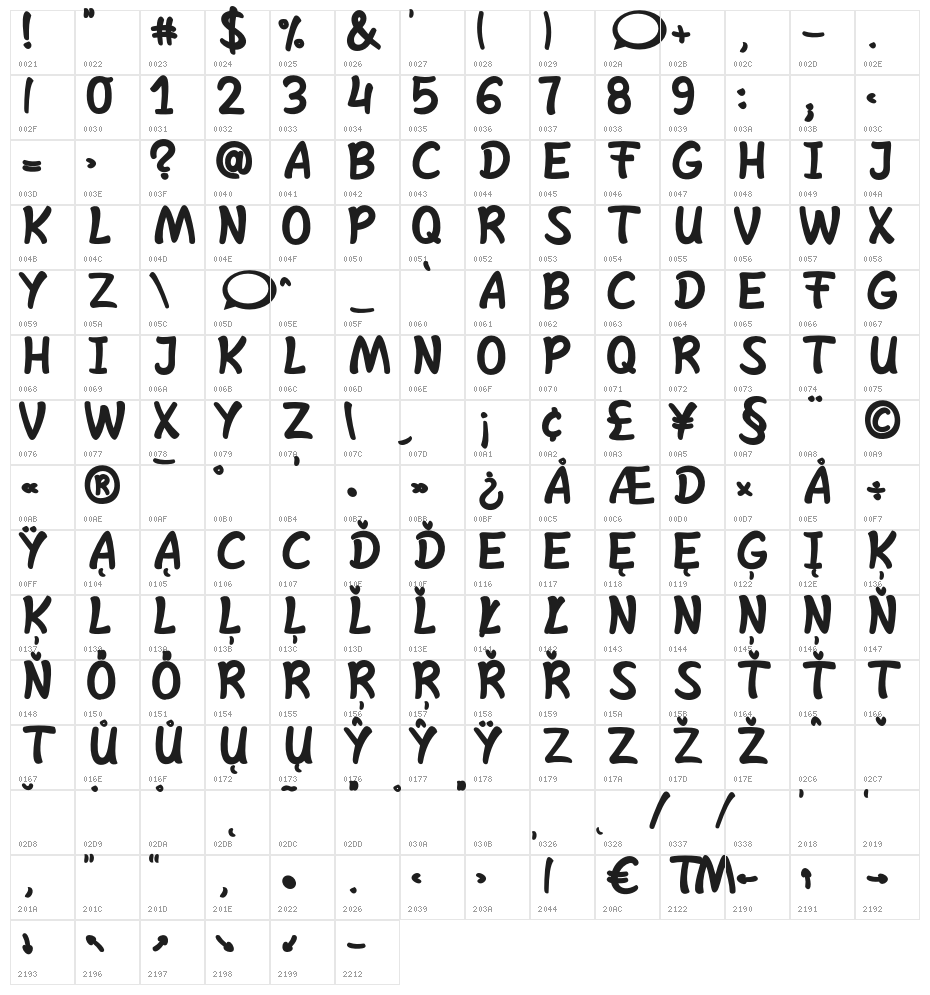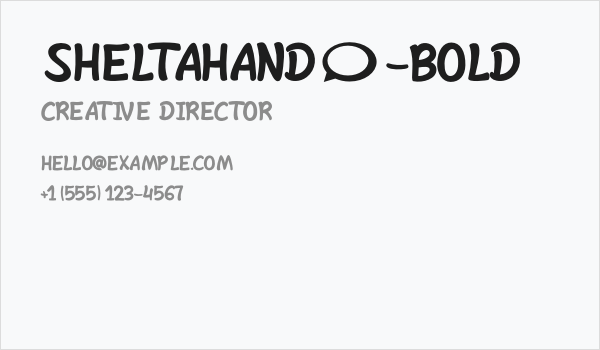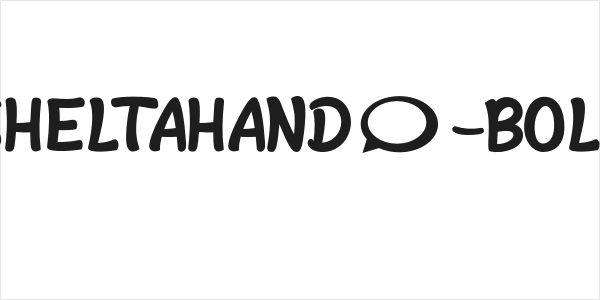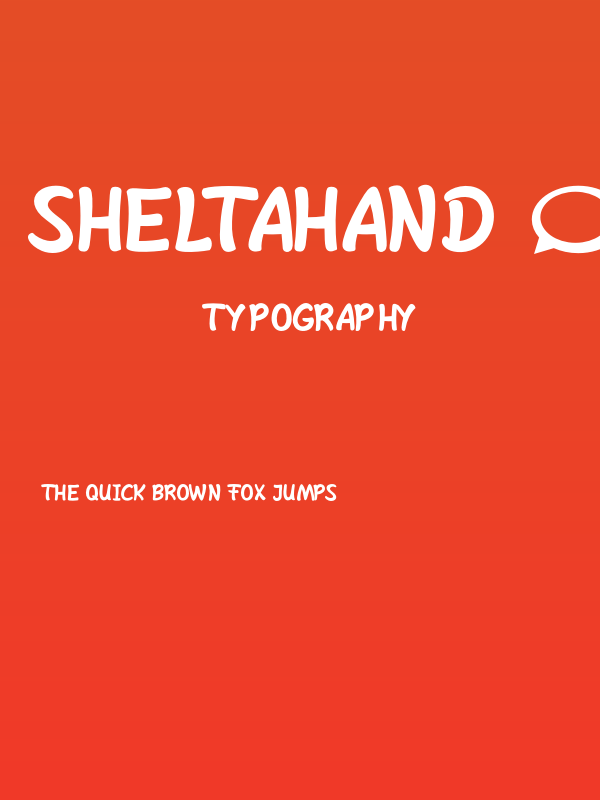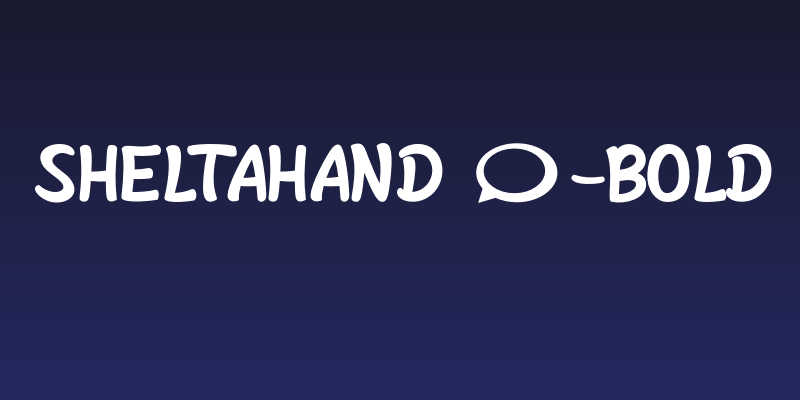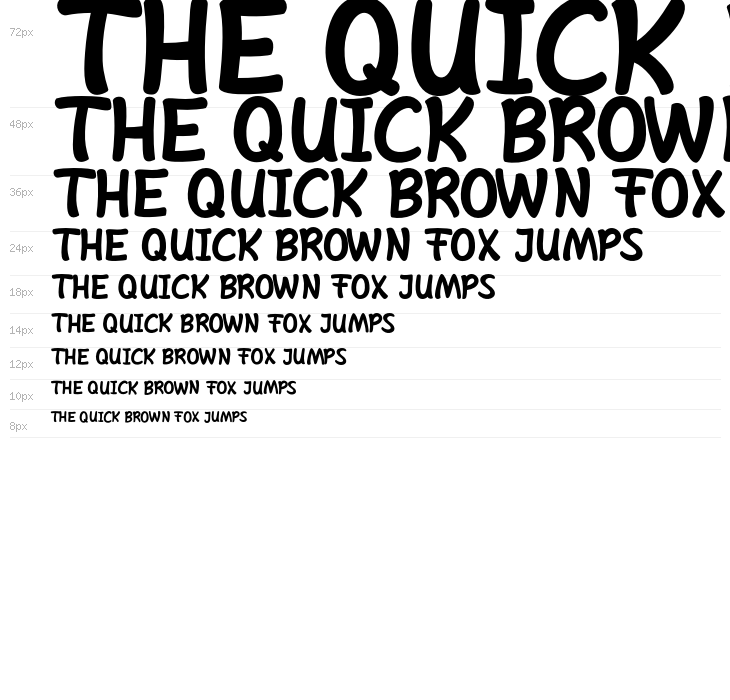
SheltaHand*-Bold Font
SheltaHand*-Bold Description
This font exhibits a playful and bold handwritten style, characterized by its thick strokes and rounded edges. The letters are slightly slanted, giving a casual and friendly appearance. The uppercase and lowercase letters maintain a consistent style, with a slight variation in size and shape that adds to its informal charm. The numbers and special characters are designed to match the overall aesthetic, ensuring a cohesive look across all text elements. The font's boldness makes it highly legible, even at smaller sizes, while its unique style adds a touch of personality to any design.
| Use Case | Logos, Headlines, Informal Text |
| Proposed Projects | Ideal for children's books, playful branding, greeting cards, and casual invitations. |